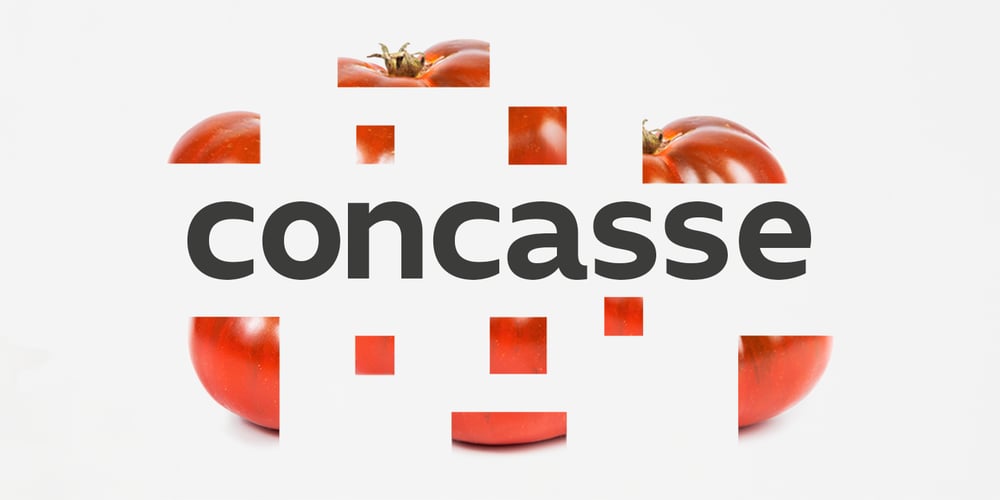
Concasse
Concasse font
Concasse Font Family was designed by Oscar Cobo and published by Lillan Team. Concasse contains 11 styles and family package options. The family comes in five weights from Thin to Black, all with true italics; and a variable file in weight and slant. Concasse is multi-purpose and reads well in body copy, the open shapes ensure excellent legibility in even the smallest text sizes, while the lightest and boldest weights deliver impact to headlines and other display uses.